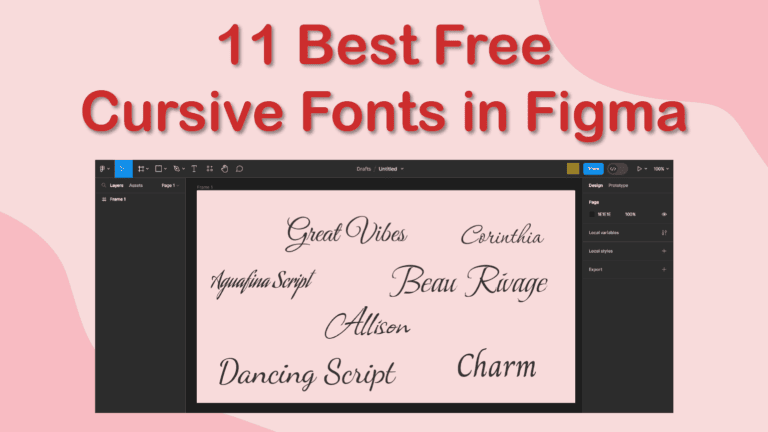
Cursive fonts, also known as script fonts, are based on handwriting and add a decorative touch to your designs. These fonts are often used on invitations, wedding and other stationery items, greeting cards, and headings for both formal and informal material.
Script fonts are limiting because they become highly unreadable when used on large paragraphs, with small font sizes, and when the words are squeezed together on a page. However, these fonts work well on large headings and ceremonial materials.
Using a cursive font will add flair and uniqueness to your designs, and here are the best 11 cursive fonts in Figma.
The 11 Best Cursive Fonts in Figma
Figma offers a range of fonts that you can use in your projects. The list of fonts that you can choose from is made up of Google Fonts. You also can use any of the fonts that are stored locally on your system.
If you don't want to use your own fonts, there are several fonts you can use directly from Figma, including several cursive fonts that will work well on formal and informal invitations, wedding stationery, and website headings. Here are 11 of the best Figma cursive fonts.
1. Alex Brush
Alex Brush is a font that displays elegance and timeless style. The looping cursive strokes seamlessly connect each letter to create a smooth script font. The letters are well-spaced apart to ensure that the text remains clean and readable when using this font.
Alex Brush is perfect for wedding invites and other stationery, menu cards, and other material that requires an air of sophistication and style.
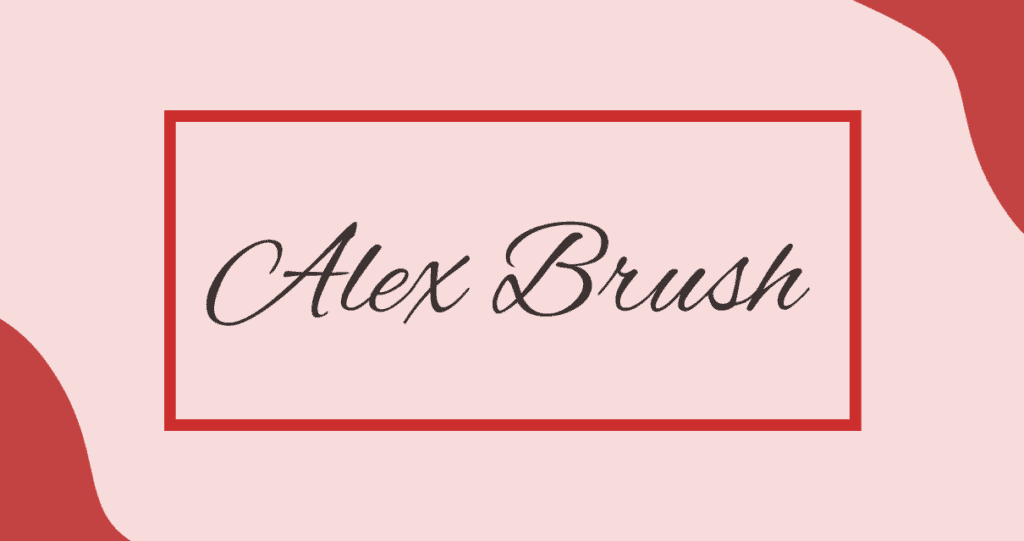
2. Dancing Script
Dancing Script is a flowing cursive font that brings an air of playfulness to your designs with curves that loop along to connect the letters. The font keeps the letters widely spaced apart so that the font is readable and neat. The font offers a bolder cursive style than other script fonts.
The boldness of Dancing Script makes it an ideal font for headings, formal invitations, business cards, and even logos.
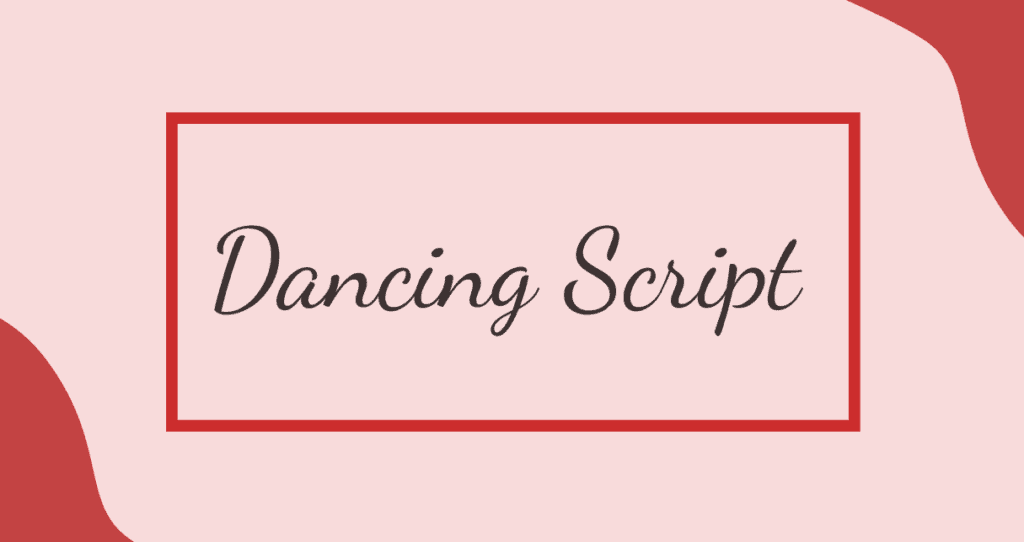
3. Charm
Charm is a handwritten-style font that offers elegance while keeping the readability of the text. The cursive letters are relatively neat to keep the letters clear. This font mimics a flat-tip pen on paper with smooth curves on the ends of each letter.
This font is perfect for formal and informal materials, including invitations, website headers, and whimsical marketing material.
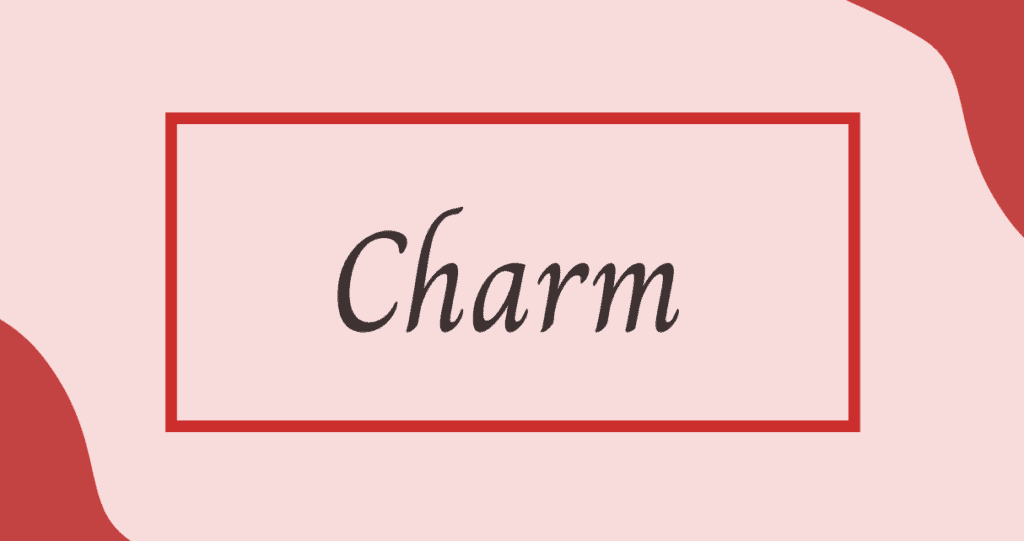
4. Aguafina Script
Aguafina Script is a more traditional cursive font that mimics hand-written words. The font is tightly placed together, with the letters tilting to the right as though they have been written by hand. The angle of the letters and the small spaces between letters reduce the font's readability.
The elegant font is well-suited for formal invitations, wedding stationery, and website headers. I recommend you use this font on short sentences or headings, as too many letters will make the text hard to read.
5. Rouge Script
Rouge Script is a reminder of old penmanship, with swirling letters that look as though they were drawn with ink and a feathered quill. Not every letter is connected, leaving room for extra curls and loops that create a sense of old-time writing. The font has thick lines and is well-spaced to keep a high readability.
Use Rouge Script on invitations, headings, or even business cards and logos for an old-timey feel of sophistication and elegance.
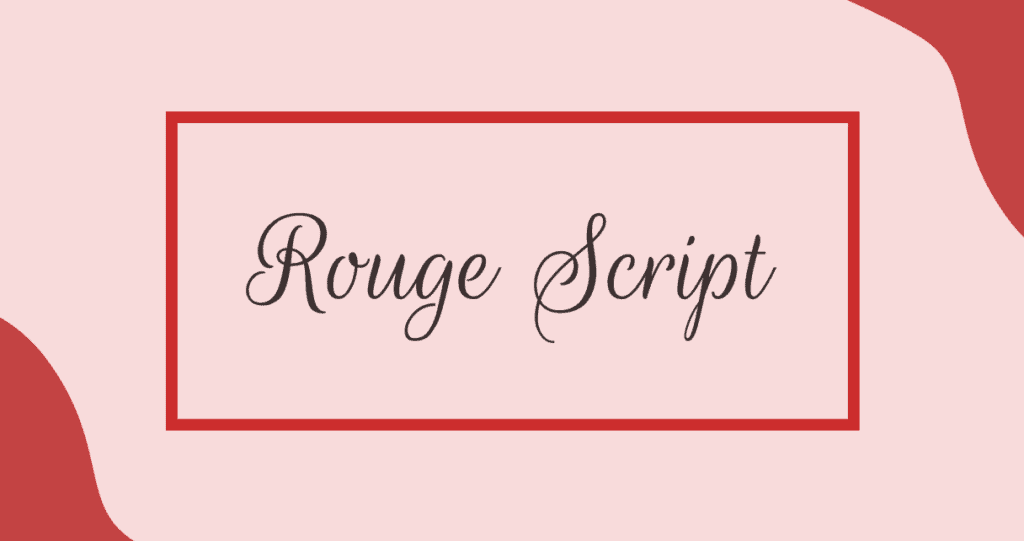
6. Euphoria Script
Euphoria Script combines old-time sophistication with an almost scribbled handwritten look. The long swirling letters have a mix of thick and thin lines that create the feeling that the writer rushed slightly when writing the words. Despite the slightly rushed look, the letters remain elegant and sophisticated.
Euphoria Script is best used on formal stationery, wedding materials, and fun material such as birthday invitations and flyers.
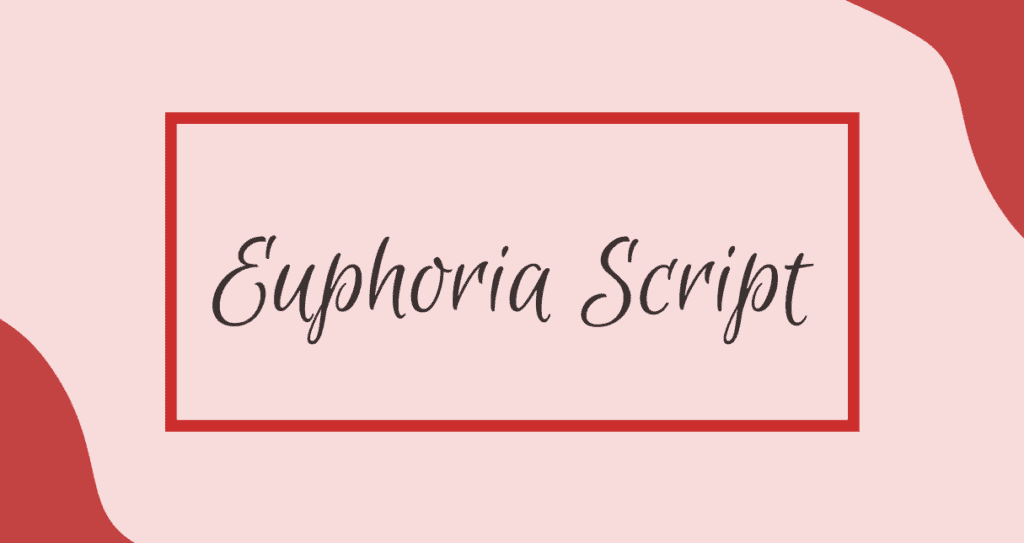
7. Corinthia
Corinthia is a true cursive font with letters that are all connected with swirling and looping lines. The letterforms stretch up high to take up space and demand the attention of those reading the text. The low curves and neat spacing create an elegant feel to the text. A few letters are finished with sophisticated twirls to add to the formal sense of the font.
Use Corinthia for holiday cards, invitations, and wedding stationery. You can also use this font on formal documents, such as diplomas.
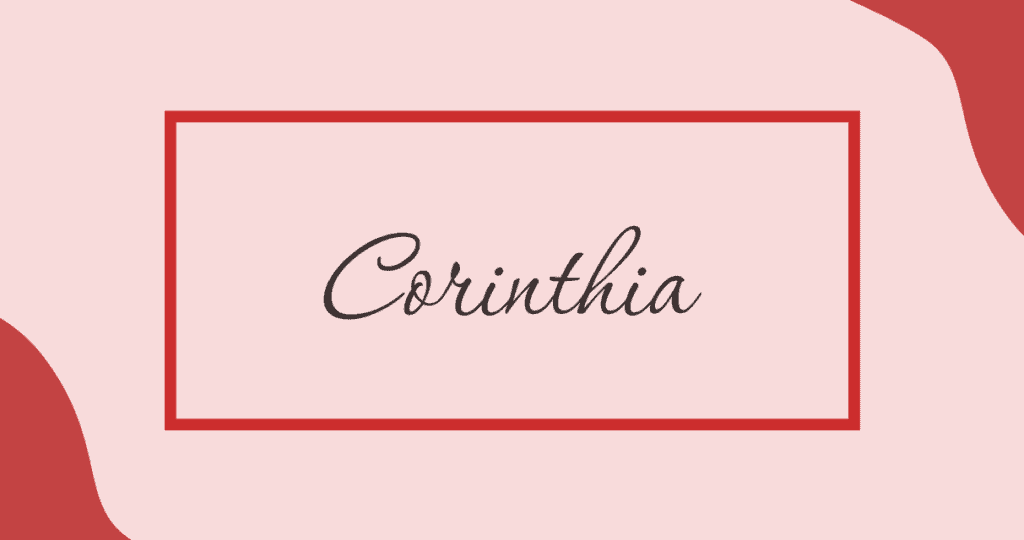
8. Allison
Allison is a more whimsical font than the rest and adds a touch of excitement with extra dashes throughout the letters. The capital letters have large swoops and curls to attract the eye, so use this font on text with lots of capital letters for the best effect.
The letters of this font are tightly packed, so be careful not to use it with long sentences, as this will reduce the readability of the font. Allison is perfect for birthday invitations and cards, as well as funky flyers that need a unique touch.
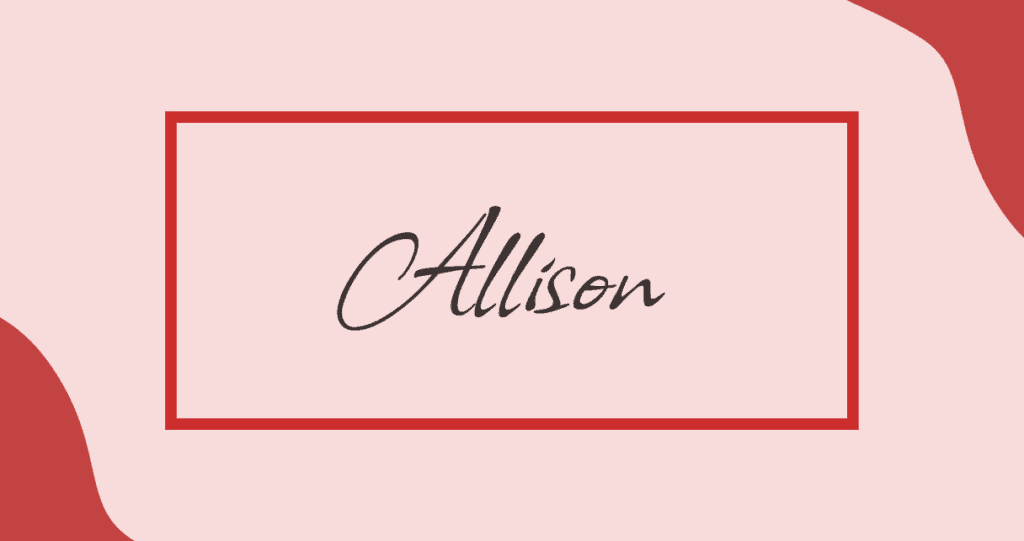
Use Beau Rivage on formal documents, invitations, and website headers that suit the cursive font style.
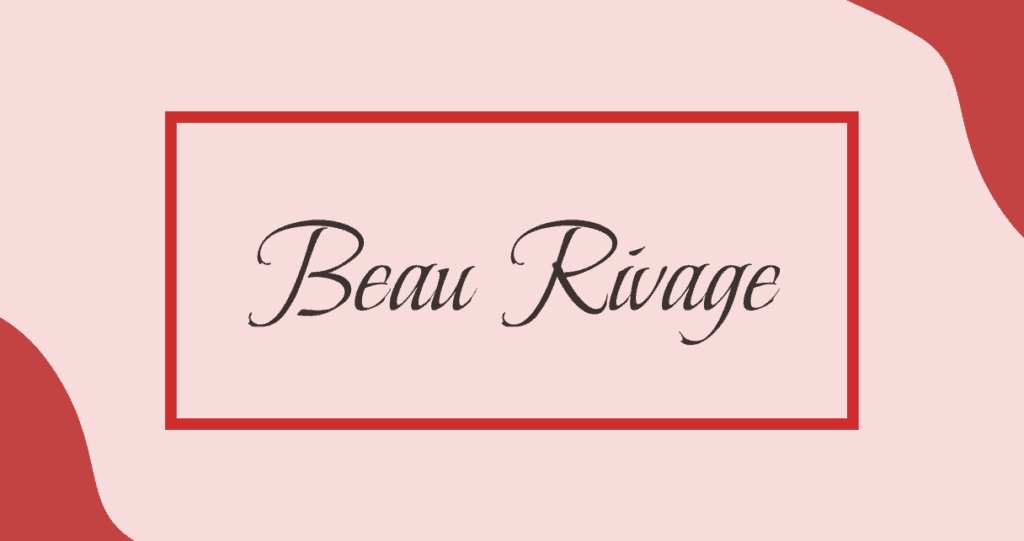
11. Great Vibes
The Great Vibes font should be used as the name suggests: for any occasion that promises great vibes, fun, and playfulness. The looping capital letters create a sophisticated font with a lot of whimsy added in. This font offers an authentic cursive feel with all the letters connecting and brings a feeling of relaxation to your project.
Great Vibes is best used on fun invitations and informal materials that promise a good time.